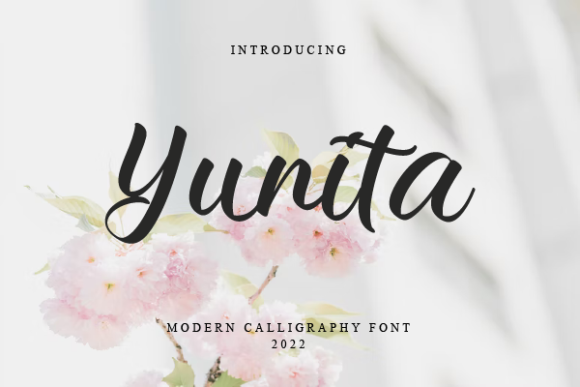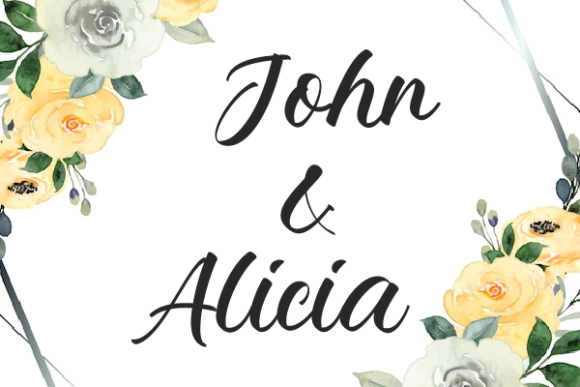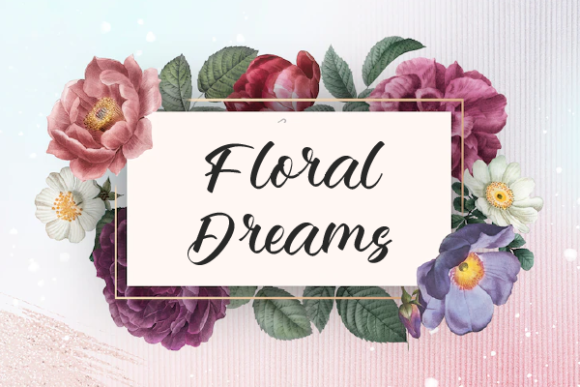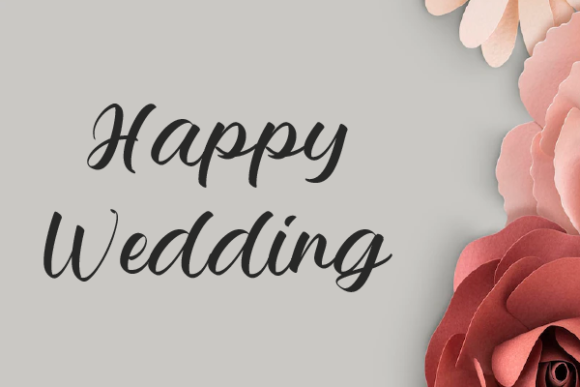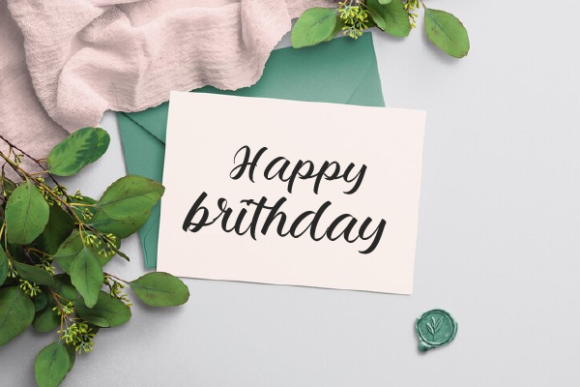
Yunita Font
About Yunita Font
Yunita isn’t just a font; it’s a delicate and fashionable script that adds a touch of elegance to any branding project. Perfectly suited for logos, t-shirt printing, creative products, and beyond, Yunita brings a sense of sophistication that elevates your designs to extraordinary heights. Its delicate strokes and fashionable flair make it a versatile choice for a variety of contexts.
Imagine Yunita gracing your brand’s logo, where its intricate yet readable script adds a layer of refinement. T-shirt designs come alive with a touch of sophistication, making a bold statement that blends fashion and creativity seamlessly.
In the realm of creative products, Yunita stands out, adding an element of chic charm to various items. Whether it’s packaging, labels, or promotional materials, the font’s unique style enhances the overall aesthetic, creating a memorable brand identity.
Yunita’s delicate script shines in a range of contexts, making it suitable for both formal and creative projects. Its fashionable quality ensures that your designs not only catch the eye but also leave a lasting impression, whether on digital platforms or printed materials.
Let Yunita be the choice that transforms your branding projects into works of art. Its delicate strokes and fashionable appeal offer a level of sophistication that goes beyond the ordinary, making every design with Yunita an extraordinary expression of style and creativity.